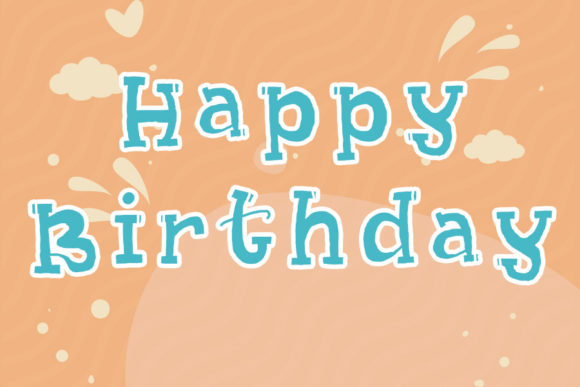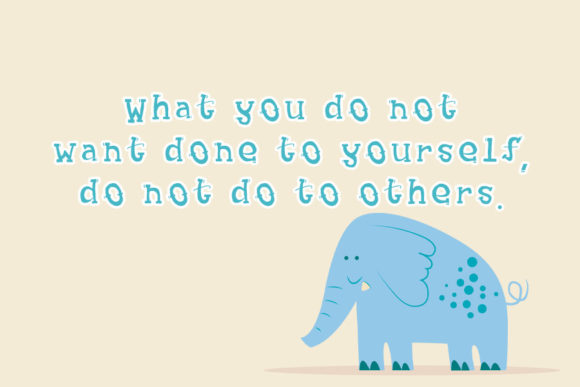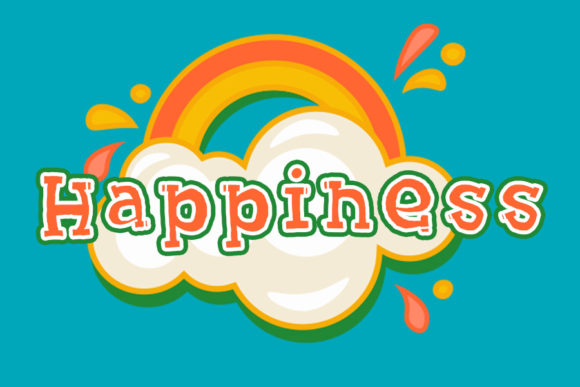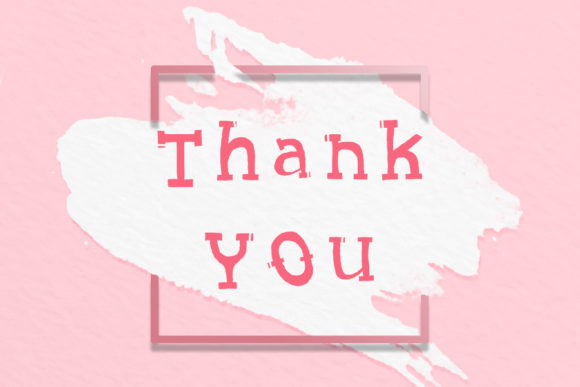
Introduction to Happy Kids Font
Do you remember the feeling of scribbling with crayons on a fresh piece of paper, watching your vibrant colors blend together in a beautiful mess? That’s the magic of creating something new, something that brings joy to those around you. As designers, we strive to capture that same essence in our work, and for children’s designs, a high-quality font is the perfect starting point.
Enter the Happy Kids Font, a delightful display font that embodies the spirit of playfulness and authenticity. This charming font is designed to bring a smile to the faces of both kids and adults alike, making it an invaluable resource for any creative project.
Whether you’re working on a children’s book, a nursery decor design, or a website for a kids’ educational platform, the Happy Kids Font is the perfect design resource to elevate your project and make it truly special.
Key Features of Happy Kids Font
- High-quality design: The Happy Kids Font is a creative project designed with precision and care to deliver a top-notch visual experience.
- Large character set: The Happy Kids Font includes a large character set, covering a wide range of languages and characters.
- Perfect for kids’ projects: The Happy Kids Font is specifically designed for kids’ projects, making it an ideal choice for children’s books, educational materials, and other related projects.
Honest Review: Happy Kids Font
I recently stumbled upon the Happy Kids Font, and I must say it’s a delightful addition to my design arsenal. The font is a perfect fit for any creative project that requires a playful and whimsical touch. One of the standout features is its high-quality design, making it a great choice for designers looking for a professional-looking font.
Here are some of the things that work well about the Happy Kids Font:
- ✨ Versatile font that can be used for various applications
- ⚠️ Limited font styles and variations
- ⚠️ May not be suitable for formal or corporate designs
Overall, I’m impressed with the Happy Kids Font. It’s a fantastic resource for designers looking for a fun and playful font. While it may have some limitations, its high-quality design and versatility make it a great choice for any creative project.
The Happy Kids Font is perfect for creating engaging content for children’s books, educational materials, or kids’ party invitations. Its playful and vibrant design is sure to capture the attention of your young audience.